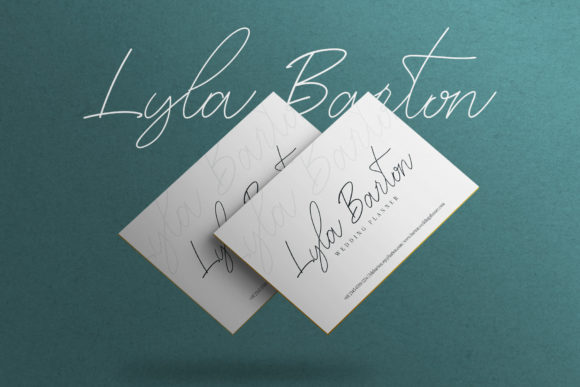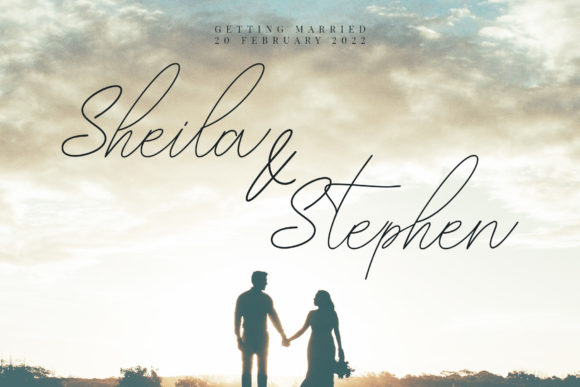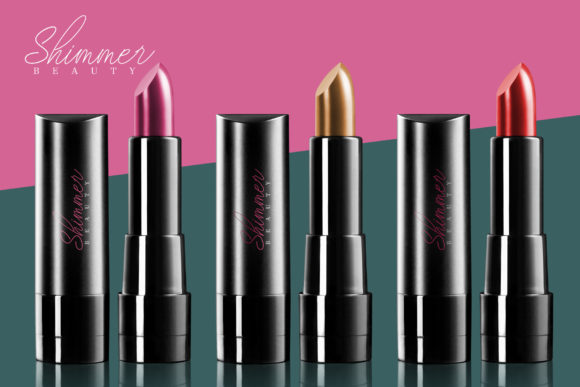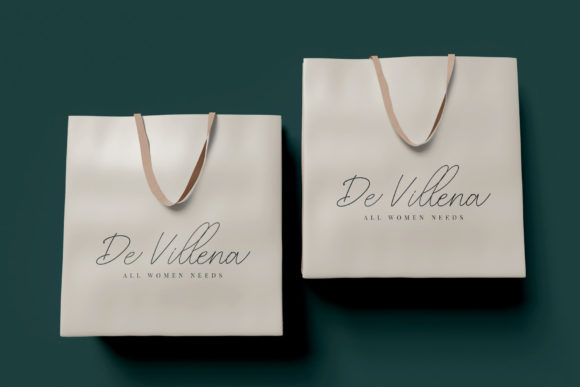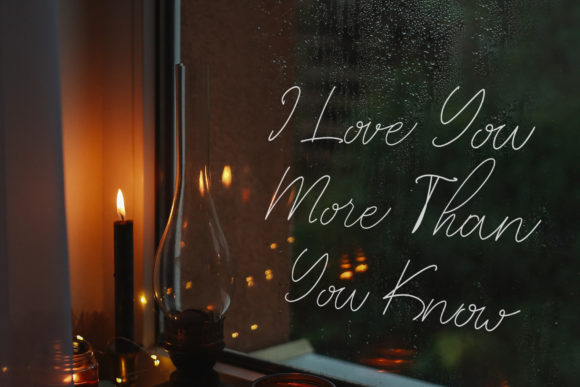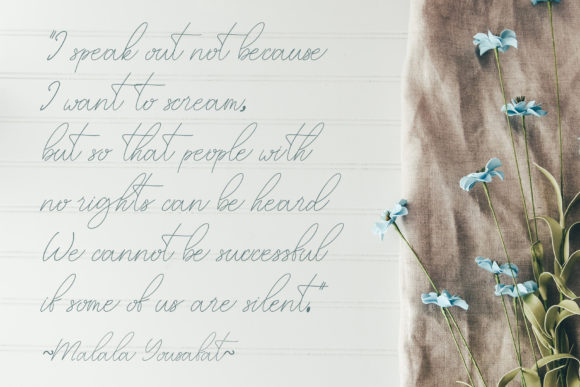
Introduction to Lloisanne Font
Have you ever stared at a blank canvas, searching for the perfect design element to bring your creative project to life? It’s that moment of inspiration when the right font can make all the difference. Imagine the elegance of a handwritten note, the romance of a wedding invitation, or the whimsy of a greeting card – all made possible with the right design resource. That’s where the Lloisanne Font comes in, a stunning handwritten font that exudes a contemporary atmosphere and adds a personal touch to any design.
As a designer, you know the value of high-quality fonts that can elevate your work and set it apart from the rest. The Lloisanne Font is a game-changer, offering a free download that’s perfect for adding a touch of sophistication to your creative projects. With its transparent background and elegant script, this font is ideal for designs that require a romantic and personalized feel.
- Unique, hand-drawn design with a transparent background, allowing for easy customization and placement.
- Designed to be versatile and easy to read, making it perfect for a variety of creative projects and applications.
Honest Review: Lloisanne Font
I recently stumbled upon the Lloisanne Font, a free design resource that caught my attention with its unique style. As a designer, I appreciate fonts that can elevate a creative project and make it stand out.
The Lloisanne Font has a high quality feel to it, with crisp lines and a clear, readable design. One of the standout features is its ability to work well on a transparent background, allowing for a seamless integration into any design.
- Unique and stylish design
- High quality feel
- Works well on transparent background
Overall, the Lloisanne Font is a great addition to any design library. It’s a versatile font that can be used for a variety of creative projects, from logos to typography-based designs.
- May not be suitable for very formal or traditional designs
- Some characters may not be as detailed as others
Overall impression: The Lloisanne Font is a solid choice for designers looking for a unique and stylish font. While it may have some limitations, its high quality design and free download make it a worthwhile addition to any design library.
Tips for Getting the Most Out of Lloisanne Font
For the best results, use Lloisanne Font on a high-quality design project with a transparent background. This will allow the font to shine and give your project a professional look. Additionally, consider using Lloisanne Font in conjunction with other design elements to create a cohesive and creative look.
Lloisanne Font is a versatile design resource that can be used for a variety of projects, including logos, business cards, and marketing materials. It’s also a great choice for creative projects that require a high-quality, unique font.
The Lloisanne Font is designed to be high-quality and scalable, with a resolution of up to 1024 x 1024 pixels. This means that the font will look sharp and clear even when used at large sizes or in high-resolution designs.